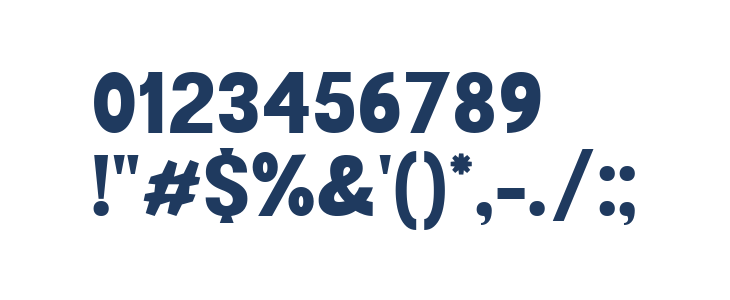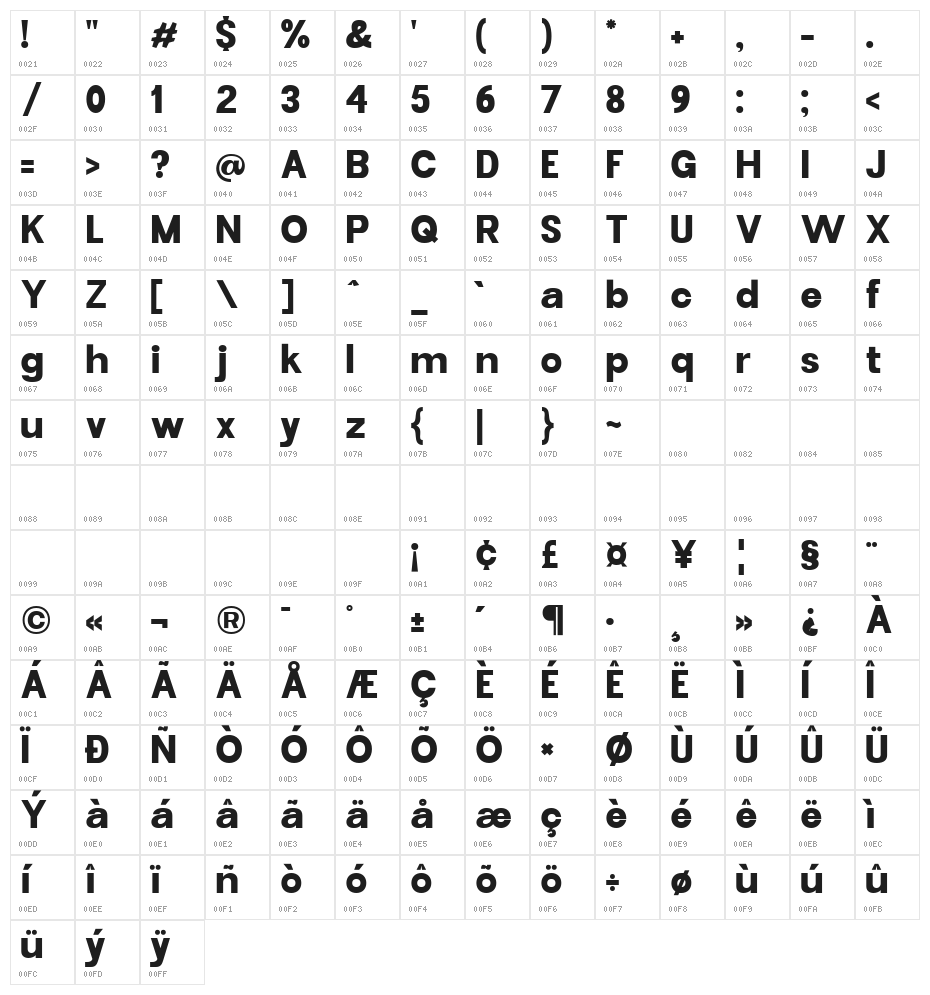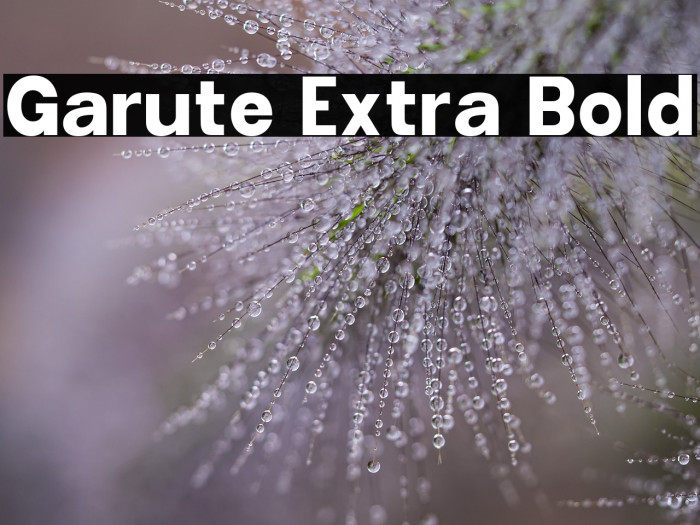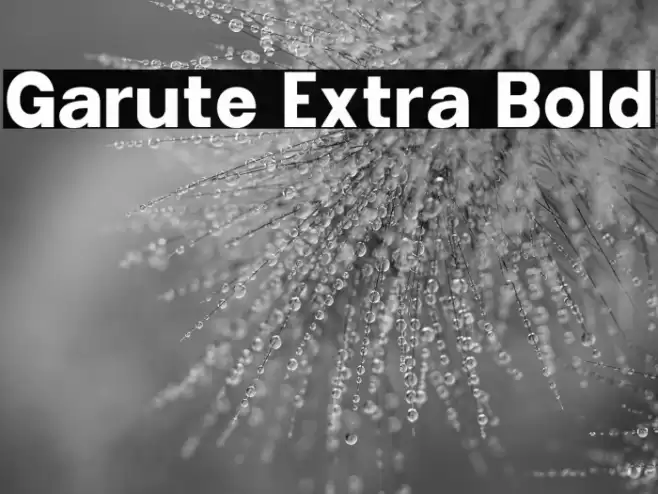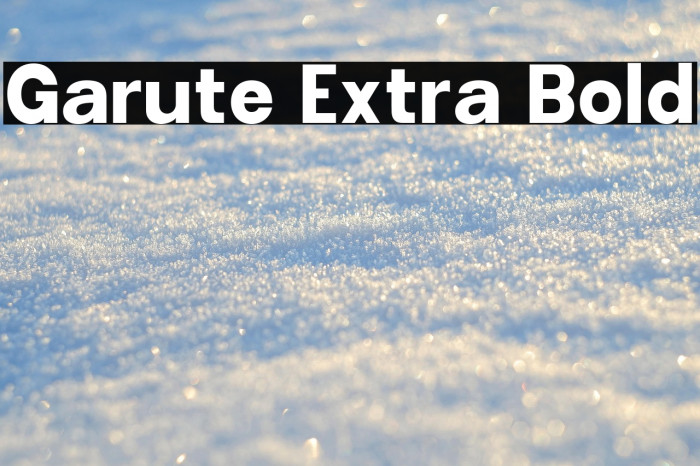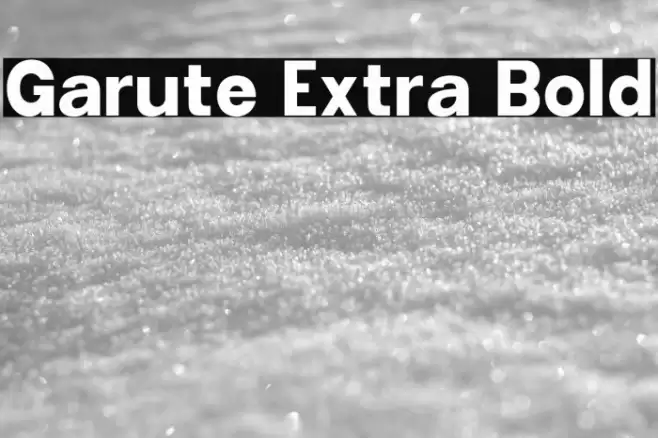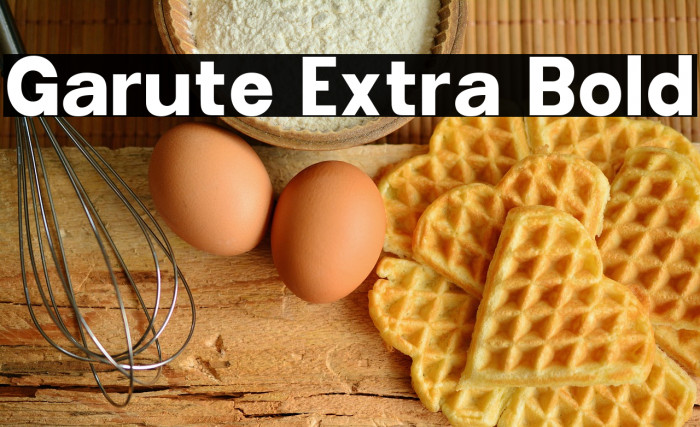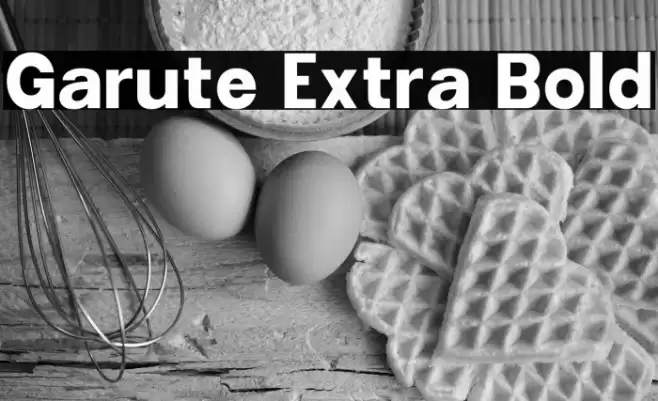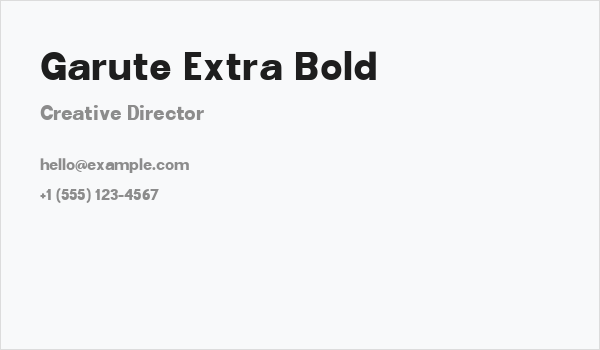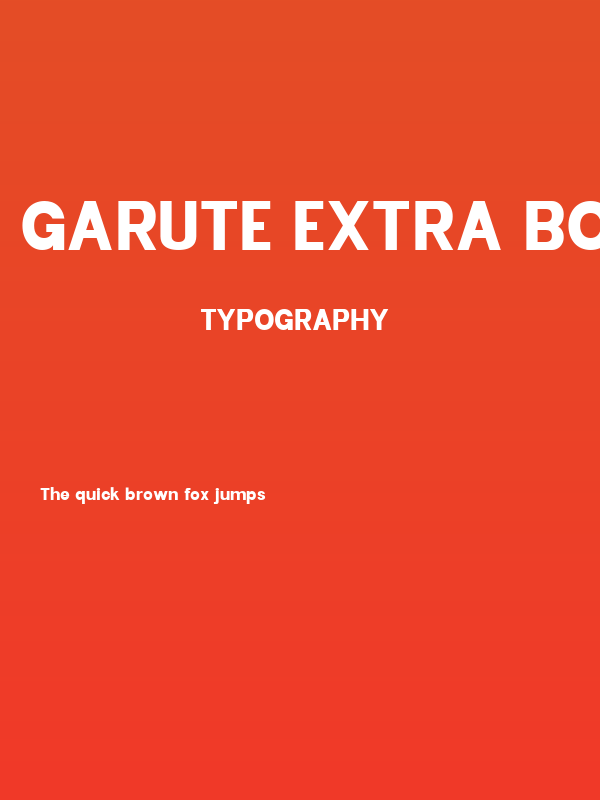
Garute Extra Bold Font
Garute Extra Bold Description
This typeface exhibits a bold and assertive presence, characterized by thick, uniform strokes that convey strength and modernity. The uppercase and lowercase letters maintain a consistent weight, providing a harmonious and balanced appearance. The numerals and special characters are designed with the same boldness, ensuring readability and impact. The font's clean lines and lack of serifs contribute to its contemporary style, making it suitable for a variety of digital and print applications. Its bold nature makes it ideal for headlines and titles, where it can capture attention and convey messages with clarity and authority.
| Proposed Projects | Ideal for branding, advertising, headlines, posters, and digital media. |